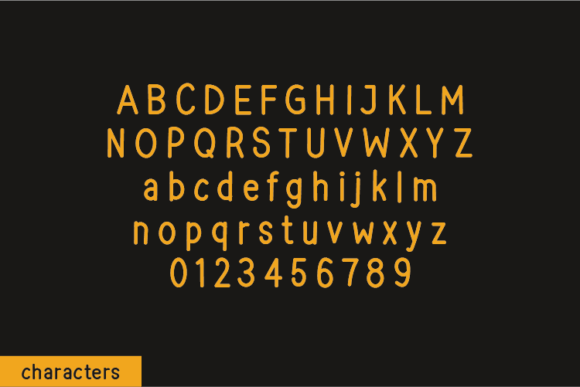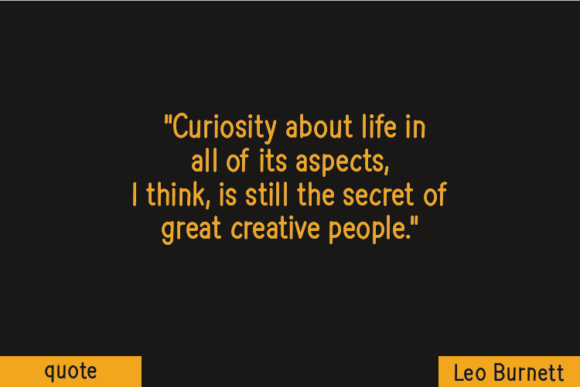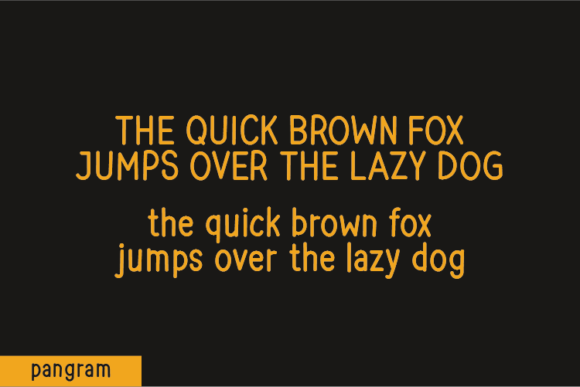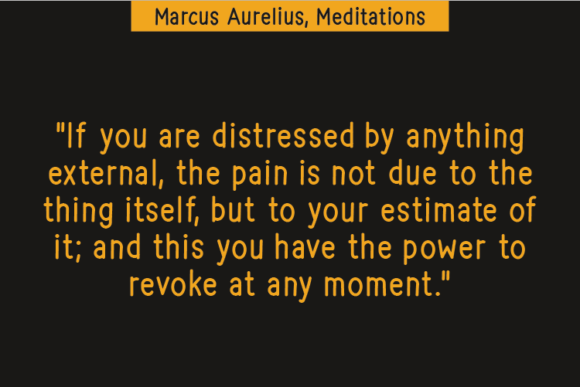
Introduction to Priceless Font
Priceless is a natural handwritten font made without changing a single node in each character’s indentation – this makes this font very interesting and unique.
Perfect for quotes, notes, tees, and any product design .
Key Features of Priceless Font